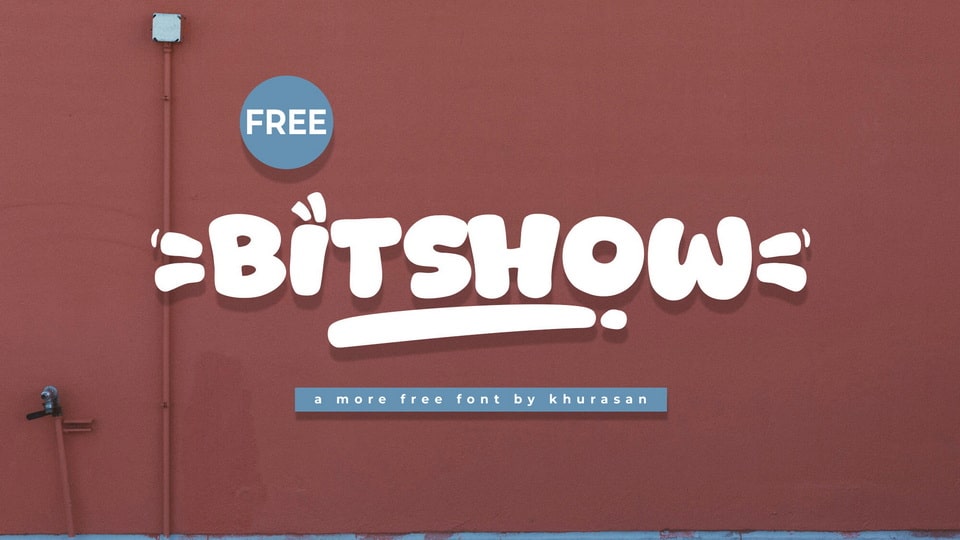
Download Bitshow font, a cute and playful hand-crafted bubble typeface designed to bring joy and warmth to your designs with its smooth curves and rounded shapes.